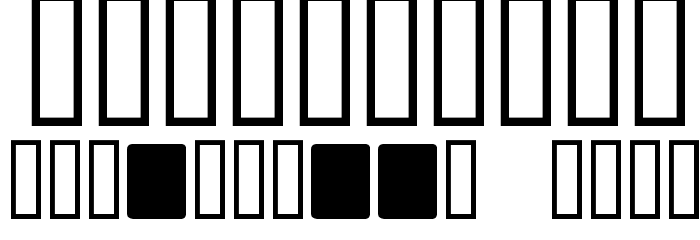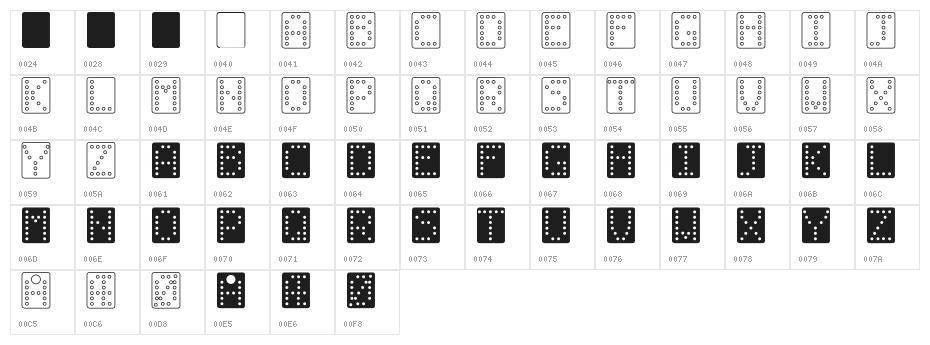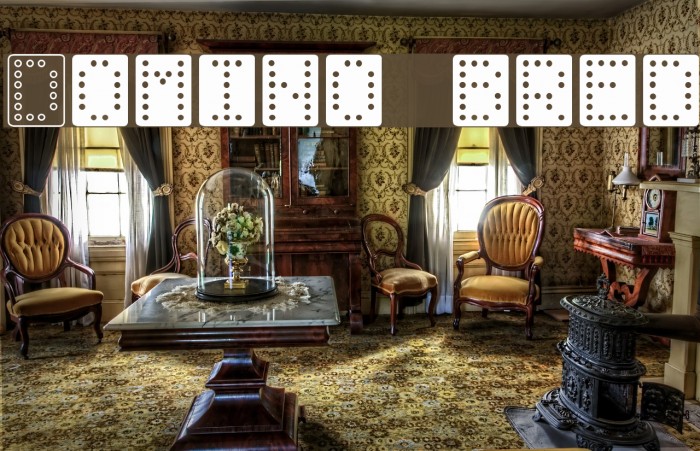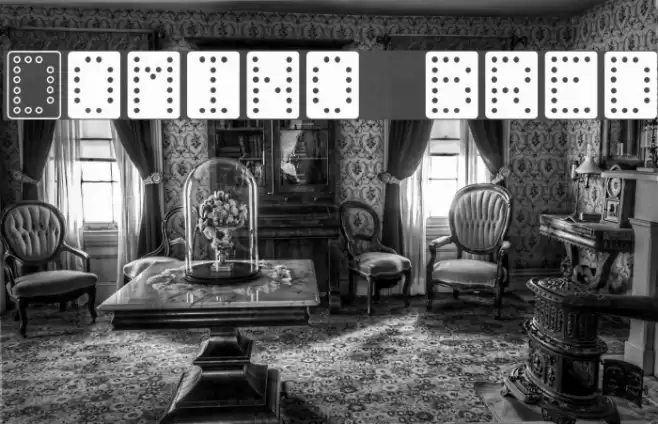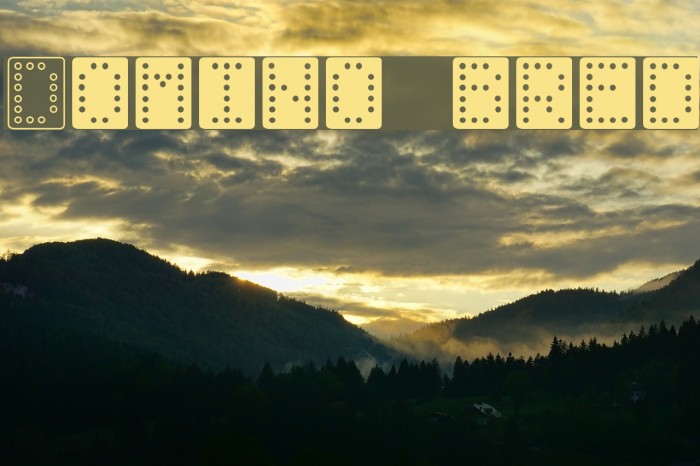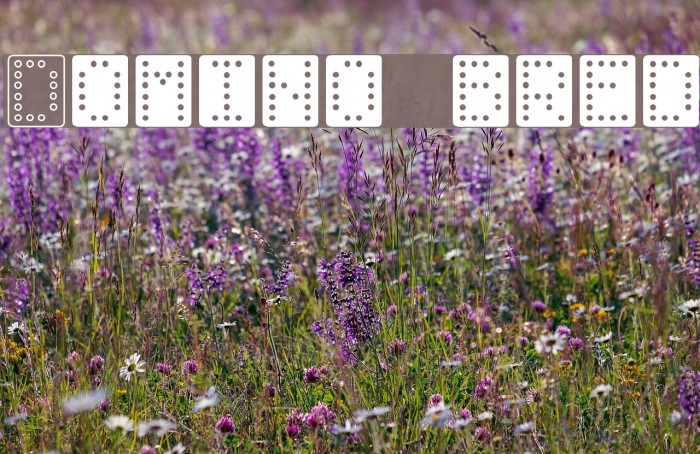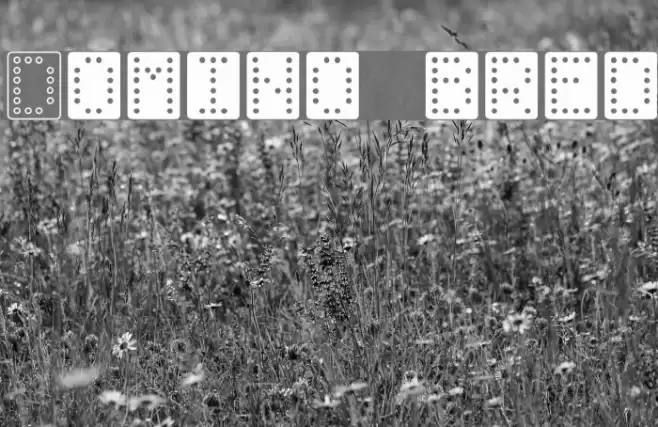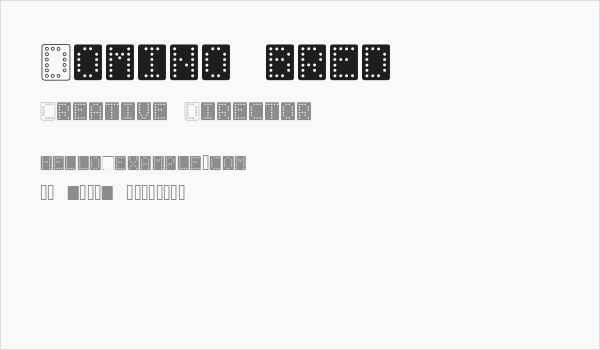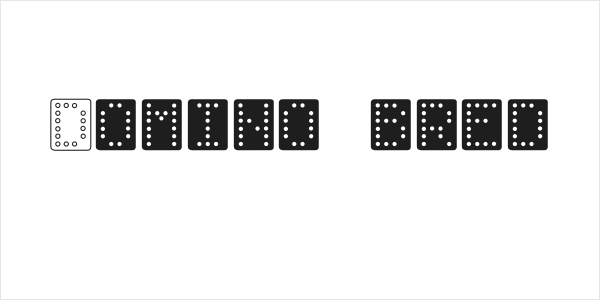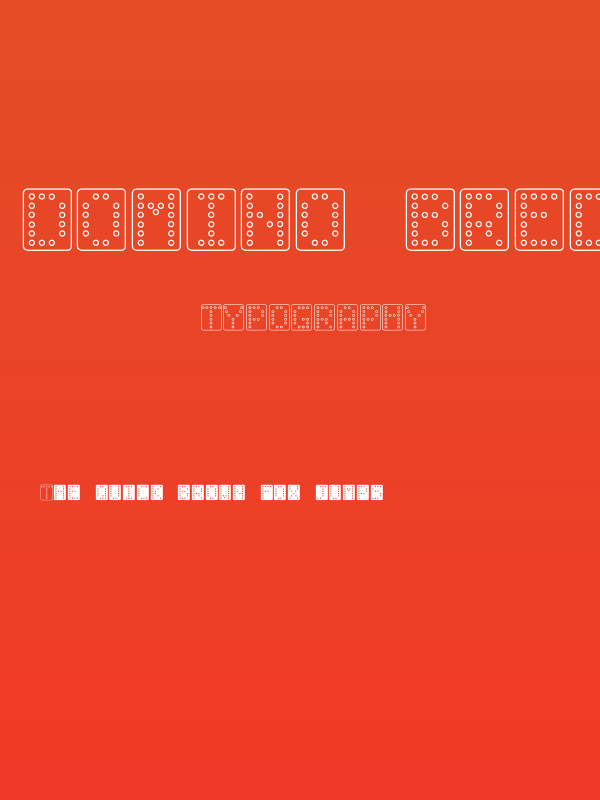
Domino bred Font
Domino bred Description
This unique font is inspired by the classic design of domino tiles, featuring letters and numbers embedded within rectangular shapes that mimic the appearance of dominoes. Each character is composed of a series of dots, reminiscent of the pips found on traditional domino pieces, arranged to form the shape of the letter or number. The font has a playful and decorative style, making it ideal for projects that require a touch of whimsy or a game-themed aesthetic. The bold, blocky design ensures high visibility and makes it suitable for eye-catching headlines or creative display purposes.
| Proposed Projects | Ideal for game-themed designs, playful posters, children's books, or any project requiring a whimsical touch. |